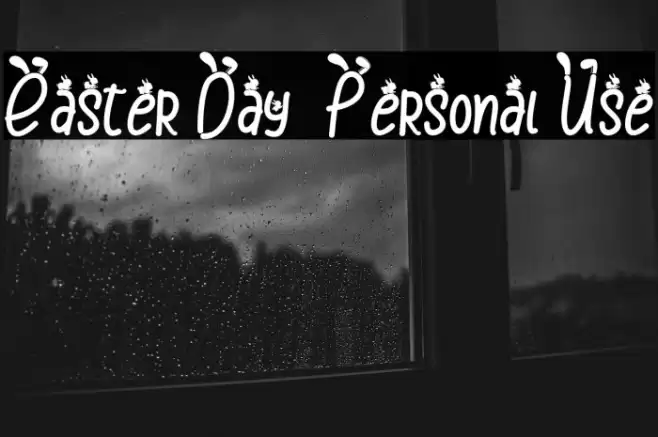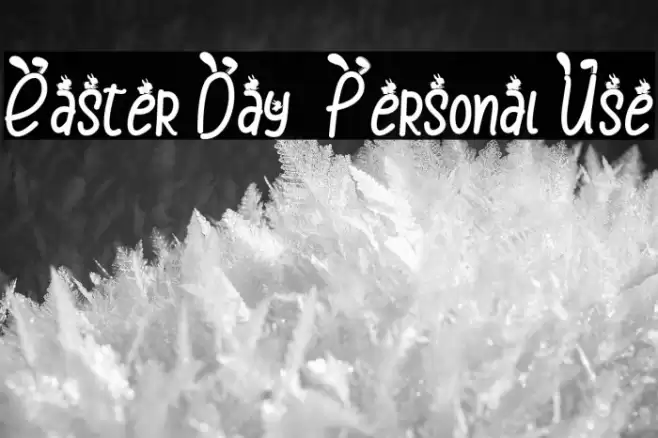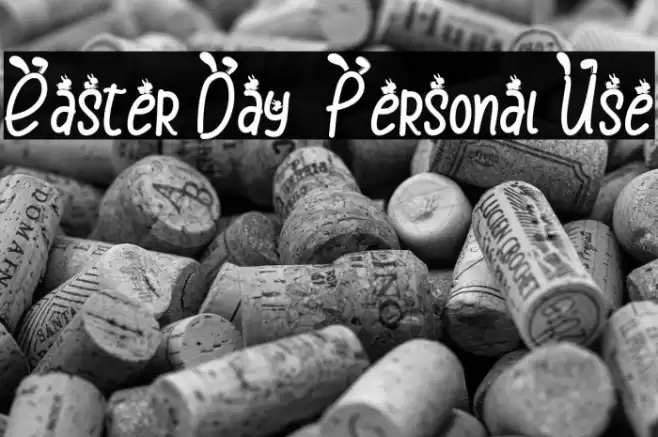
Easter Day - Personal Use Font
This playful and whimsical font features a unique design where each letter is adorned with bunny ears, adding a festive and cheerful touch. The characters are bold and rounded, with a smooth flow that enhances readability while maintaining a fun aesthetic. The uppercase and lowercase letters maintain a consistent style, with the bunny ears providing a distinctive and eye-catching element. The numbers and special characters also follow this theme, making the font cohesive and suitable for themed projects.
A playful font with bunny ears on each letter, perfect for festive designs from Regular fonts.
- Proposed Projects: Ideal for Easter-themed invitations, children's book covers, playful branding, and holiday greeting cards.
- Use Case: Headlines, Logos, Themed Invitations